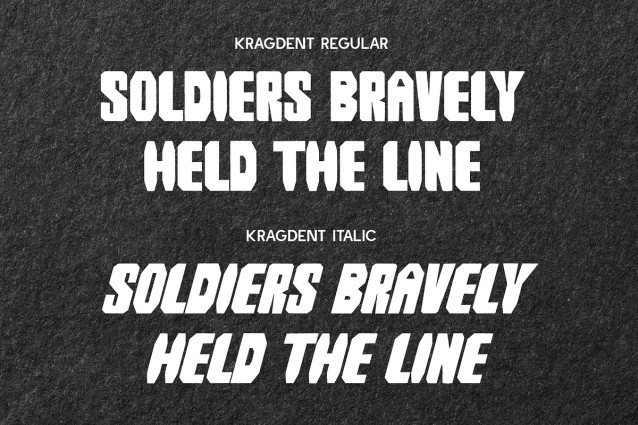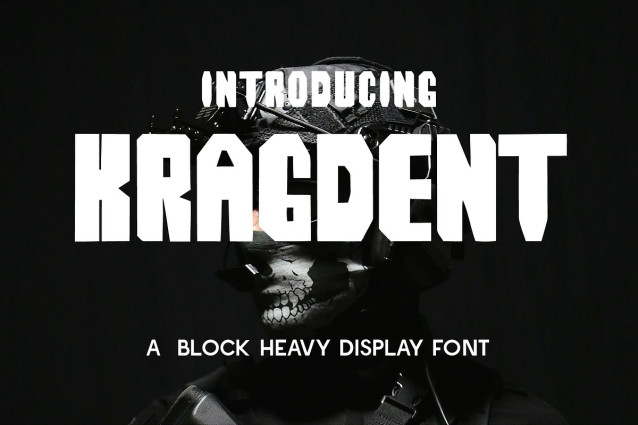
CF Kragdent Font
CF Kragdent Font is a commanding block-heavy display font designed to make a bold, tactical impact. Its angular, armored letterforms are built with brute strength and precision, making it an ideal choice for titles, esports branding, military themes, extreme sports, and anything requiring a powerful visual presence.
This all-caps typeface delivers a raw, aggressive energy with geometric cuts and tightly packed spacing. The forms are engineered for maximum presence and visibility, evoking themes of strength, grit, and resilience. Kragdent thrives in hostile and high-intensity contexts—whether it’s on a poster, banner, game interface, or bold logo.